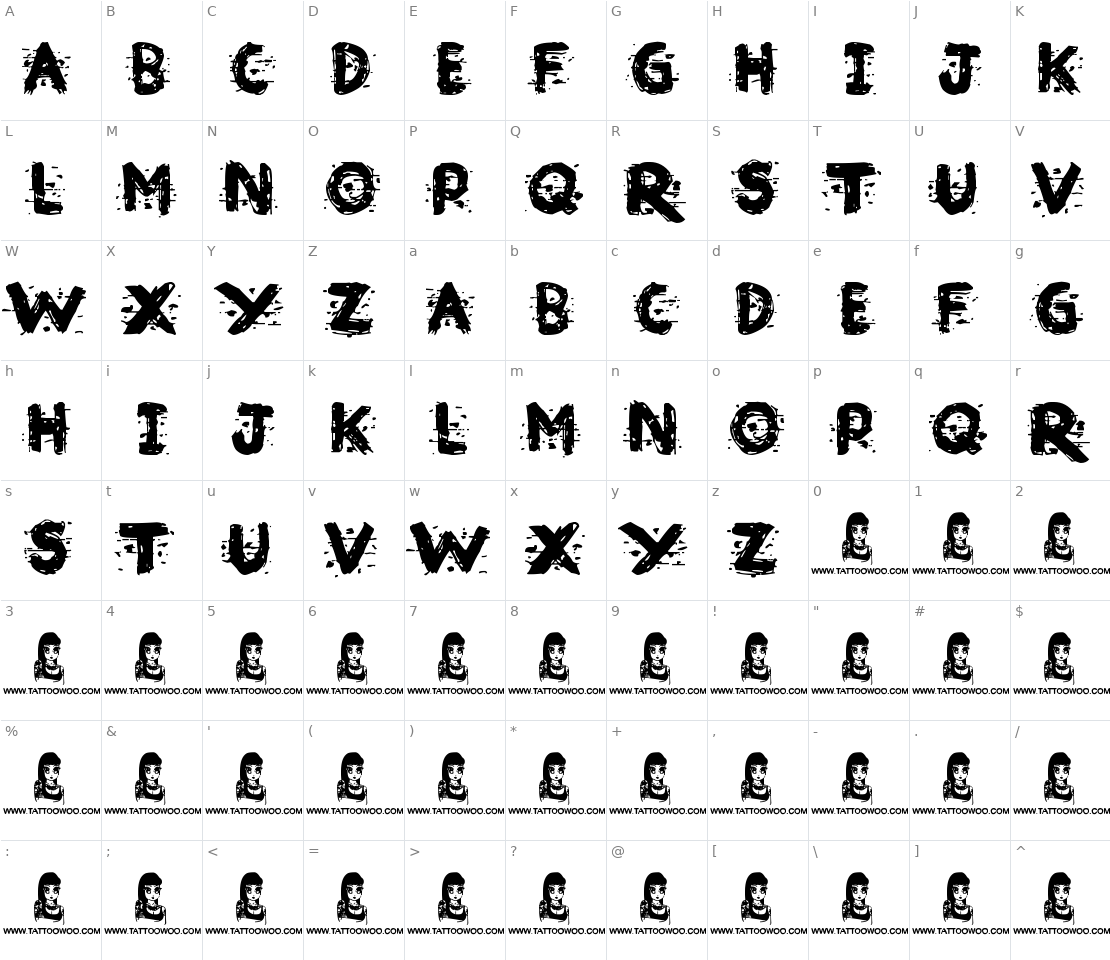
Broken Ink
Broken Ink is a heavily eroded display face from Jonathan S. Harris, with letterforms that look like they were printed with a dying inkjet on wet paper. The rough, crumbling texture gives every character a dark, unsettling quality that fits naturally into horror posters, grungy album art, and anything that needs to feel decayed. Best kept to headlines and short text where the distressed detail stays visible.